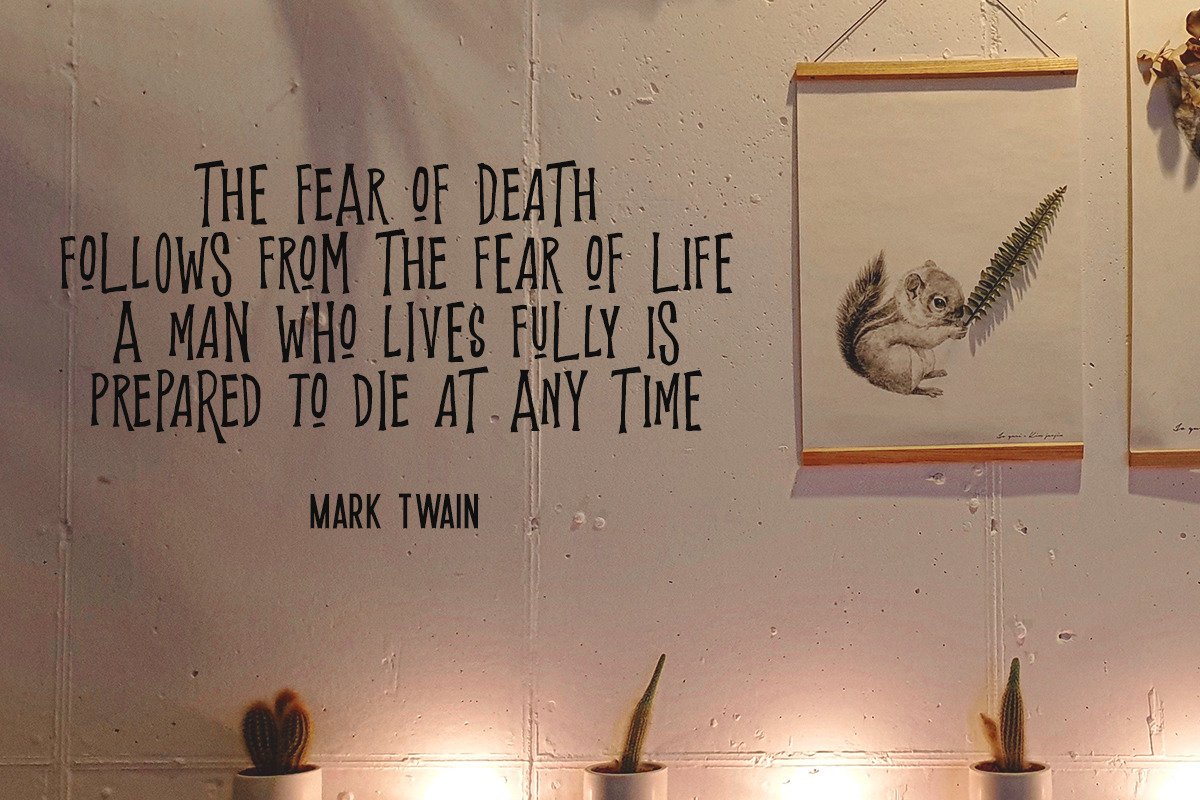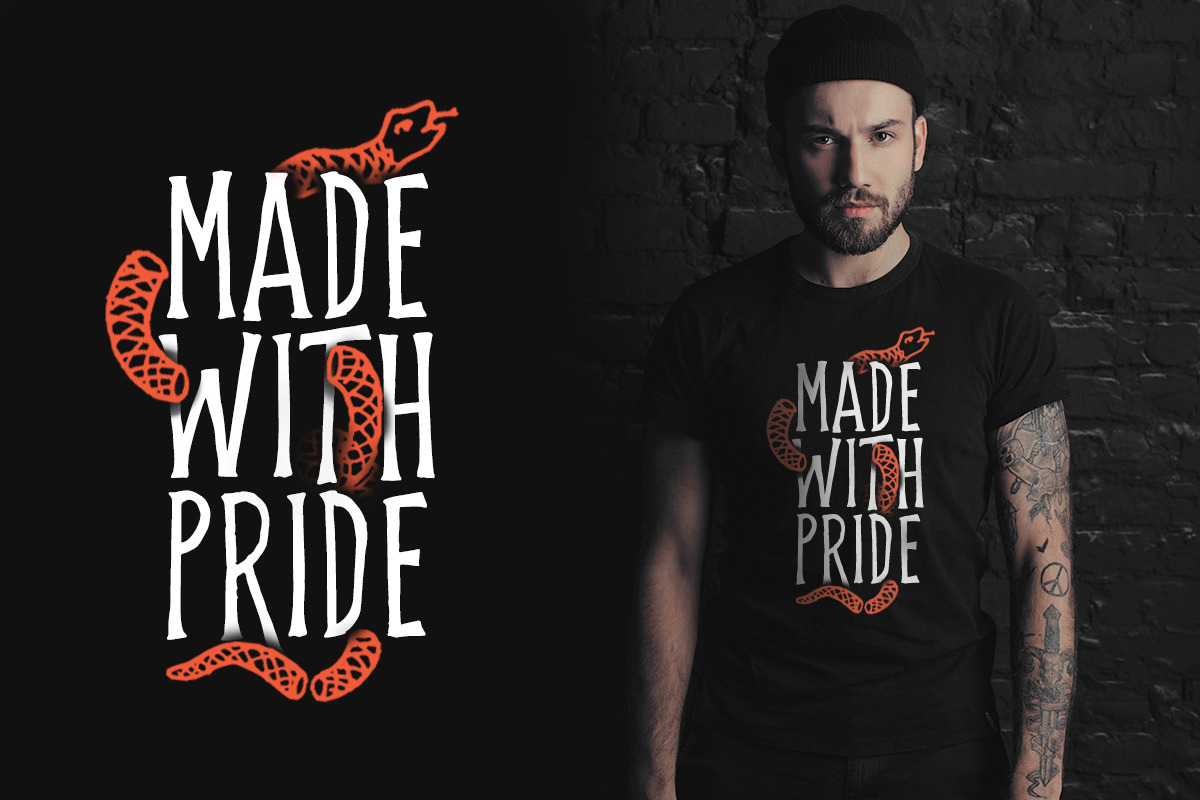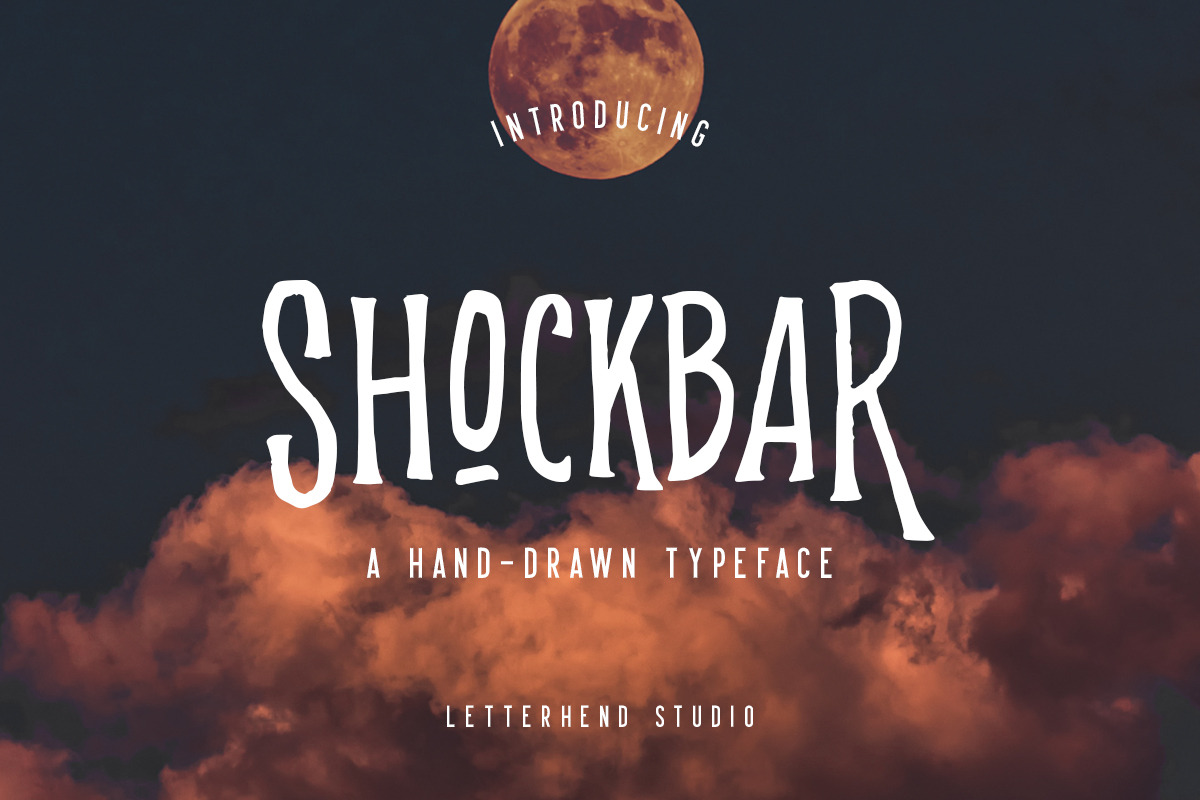
Shockbar - Hand Drawn Typeface
Introducing, Shockba, a hand drawn typeface. This font perfectly made to be applied especially in logo, and the other various formal forms such as invitations, labels, logos, magazines, books, greeting / wedding cards, packaging, fashion, make up, stationery, novels, labels or any type of advertising purpose.
- alternates